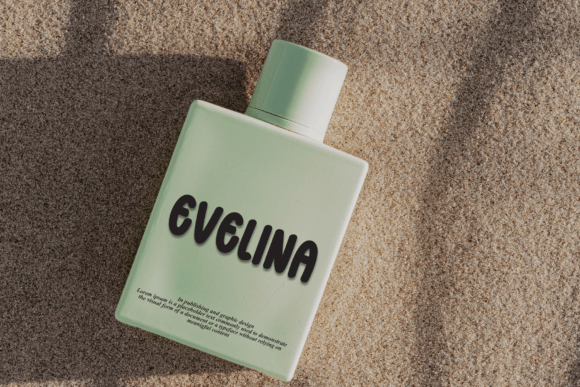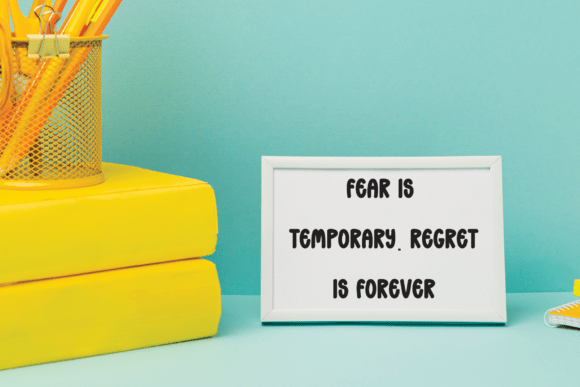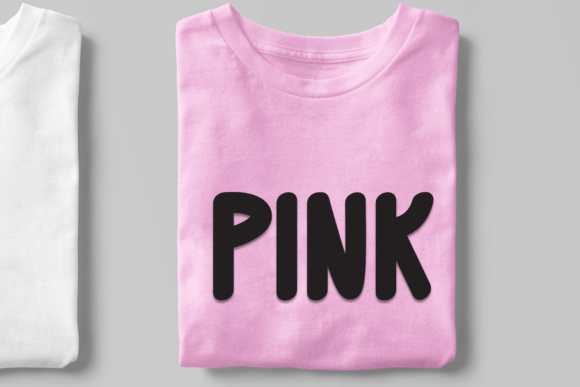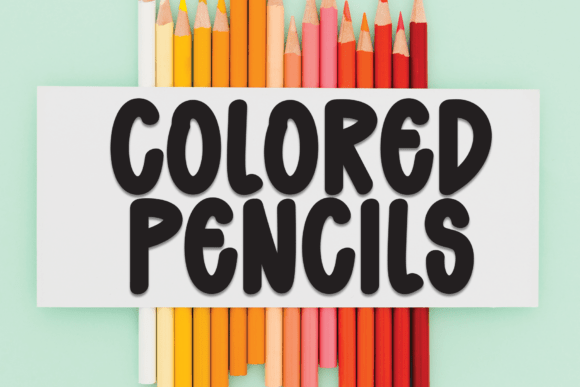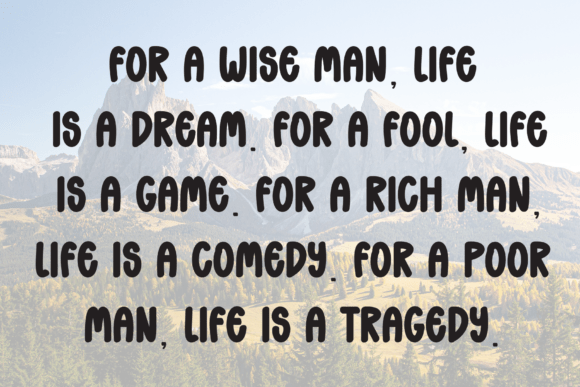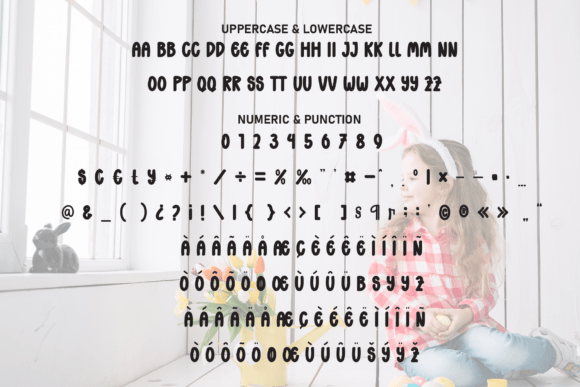
Easter Window Font: Elevate Your Designs with a Touch of Warmth and Clarity
Are you on the hunt for a font that can bring a sense of warmth and approachability to your designs? Look no further than the Easter Window Font. This casual and neat display font is specifically designed to add a touch of charm and genuineness to your projects, making it an excellent choice for designers and crafters alike.
Clean Structure, Approachable Style
One of the standout features of the Easter Window Font is its clean structure and approachable style. The balanced letterforms are carefully crafted to offer exceptional readability, making it perfect for use in branding, headlines, and everyday designs. Whether you’re working on a logo, brochure, or social media graphics, this font is sure to make your message feel genuine and inviting.
The Easter Window Font is incredibly versatile, making it suitable for a wide range of design applications. From packaging and advertising to digital media and crafts, this font can be used to add a touch of personality to any project. Its clean and neat design ensures that it will work seamlessly with a variety of design styles, from modern and minimalist to playful and whimsical.
Key Features of Easter Window Font
- Clean and Neat Design: The Easter Window Font boasts a clean and neat design that makes it perfect for use in a variety of design applications.
- Approachable Style: The font’s approachable style makes it ideal for designers who want to create a sense of warmth and friendliness in their designs.
- Balanced Letterforms: The balanced letterforms of the Easter Window Font offer exceptional readability, making it perfect for use in headlines, branding, and everyday designs.
- Versatile: This font is incredibly versatile and can be used in a wide range of design applications, from packaging and advertising to digital media and crafts.
Why Choose Easter Window Font?
So, why should you choose the Easter Window Font for your next design project? Here are just a few reasons:
- Unique and Eye-Catching: The Easter Window Font is a unique and eye-catching font that is sure to make your designs stand out from the crowd.
- Easy to Read: The font’s clean and neat design makes it easy to read, even at small sizes.
- Highly Versatile: The Easter Window Font is highly versatile and can be used in a wide range of design applications.
- Perfect for Branding: The font’s approachable style and balanced letterforms make it perfect for use in branding and advertising.
Tips for Using Easter Window Font
Here are a few tips for using the Easter Window Font in your designs:
- Use it as a Display Font: The Easter Window Font is perfect for use as a display font in headlines, titles, and captions.
- Pair it with Other Fonts: The font pairs well with other fonts, making it easy to create a unique and eye-catching design.
- Experiment with Different Sizes: The Easter Window Font looks great at a variety of sizes, from small and delicate to large and bold.
In conclusion, the Easter Window Font is a fantastic choice for designers and crafters who want to add a touch of warmth and clarity to their designs. With its clean structure, approachable style, and balanced letterforms, this font is perfect for use in a wide range of design applications. Whether you’re working on a branding project, creating a logo, or designing a brochure, the Easter Window Font is sure to make your message feel genuine and inviting.